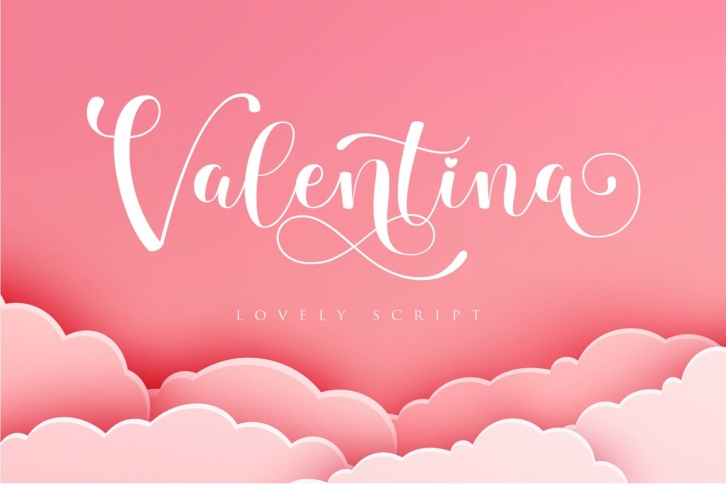
Valentina is a trendy and unique font with an authentic style. It was designed by Gilar Studio and it's a great choice for creative people who need such a font. It was released on February 12, 2021 and the file size is 6.66 MB. Valentina will add an organic vibe to any design idea!